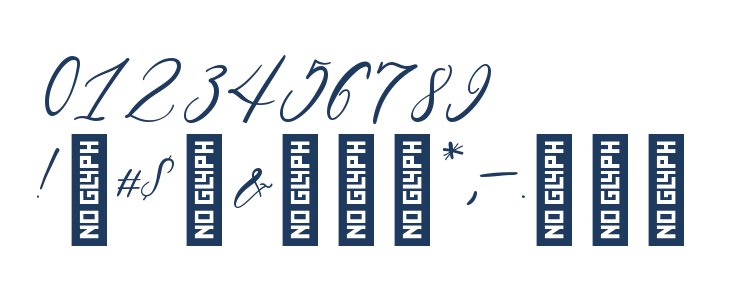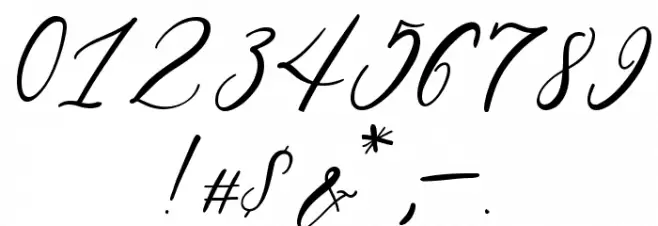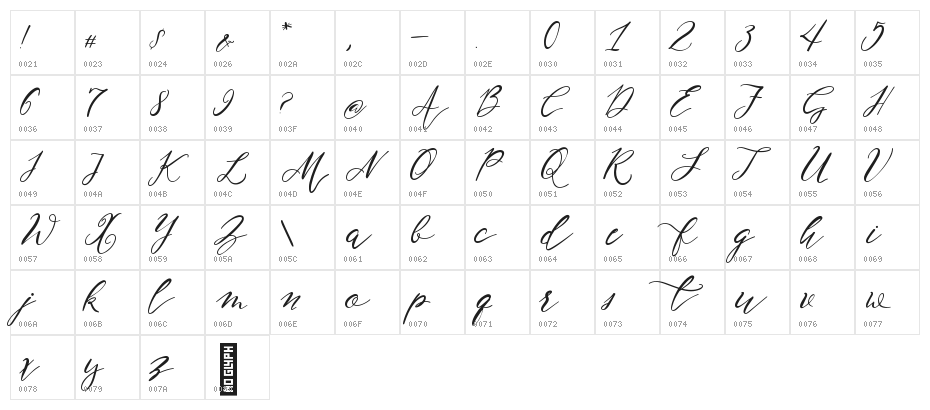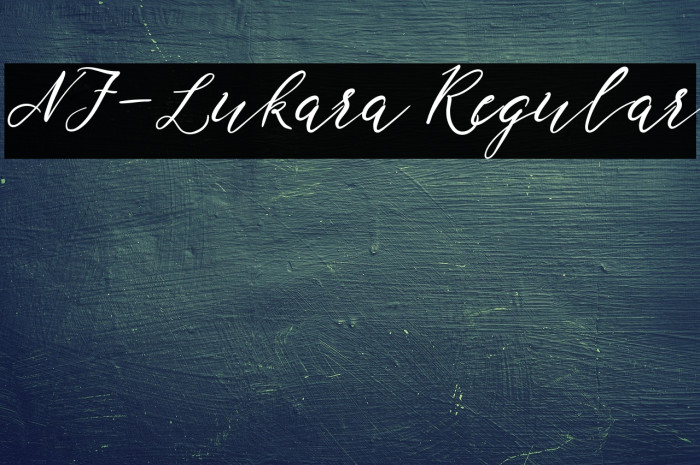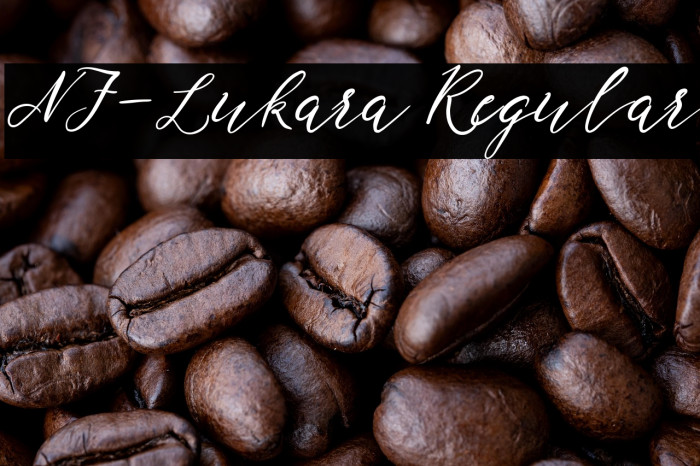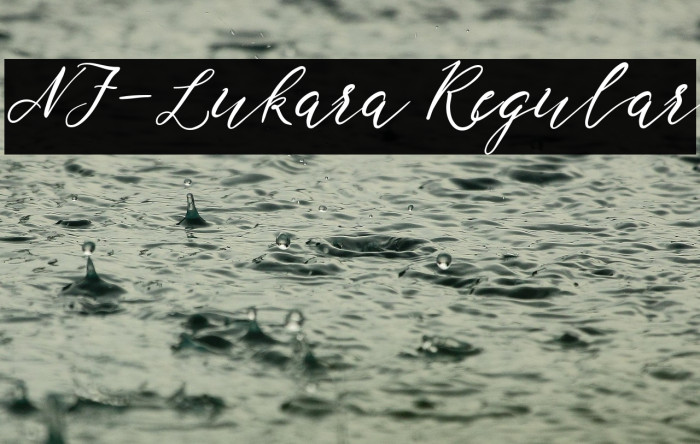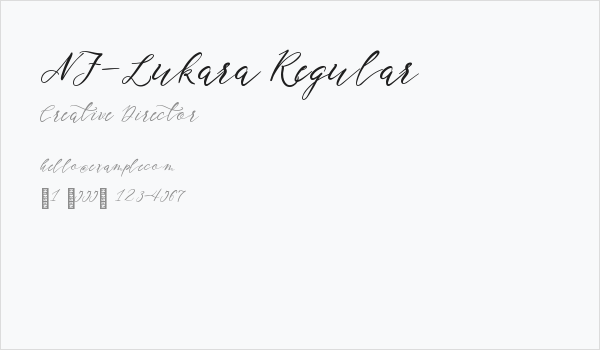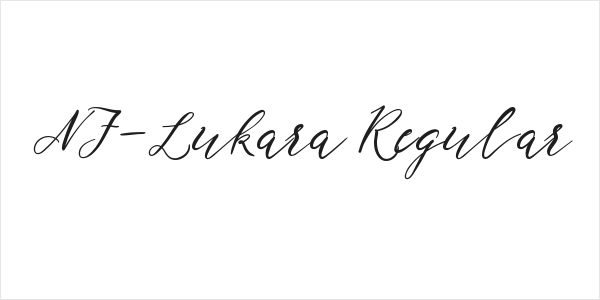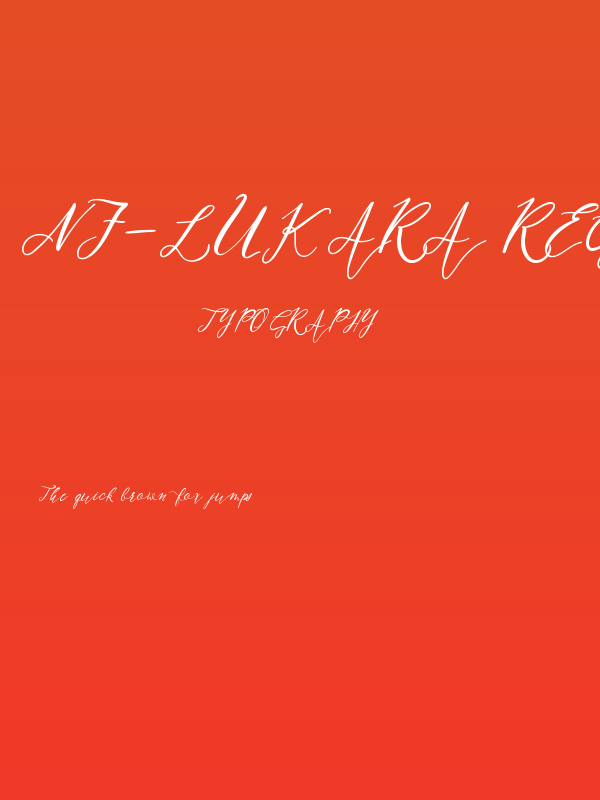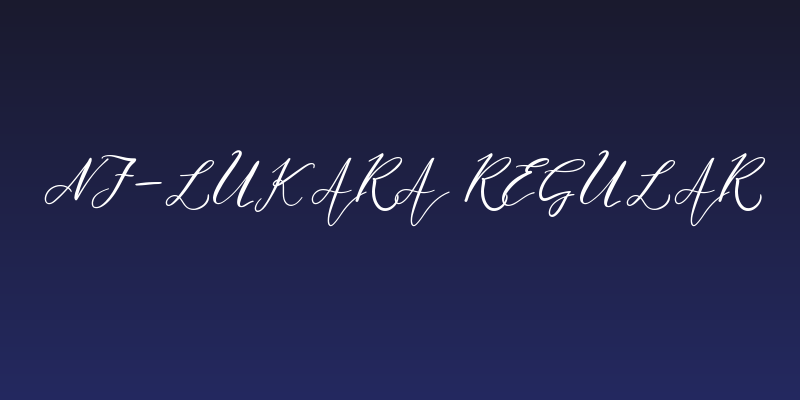
NF-Lukara Regular Font
NF-Lukara Regular Description
This elegant script font features flowing, cursive letters with a sophisticated and artistic flair. The uppercase letters are characterized by their sweeping curves and loops, giving a sense of movement and grace. The lowercase letters maintain a consistent style, with smooth connections and a slightly slanted orientation, enhancing readability while preserving the decorative quality. The numerals are distinct yet harmonize well with the overall script style, featuring similar curves and fluidity. Special characters are thoughtfully designed to match the aesthetic, making this font versatile for various applications.
| Overall Style | Elegant, Artistic |
| Use Case | Invitations, Branding, Stationery |
| Proposed Projects | Ideal for wedding invitations, elegant branding, personal stationery, and artistic projects. |